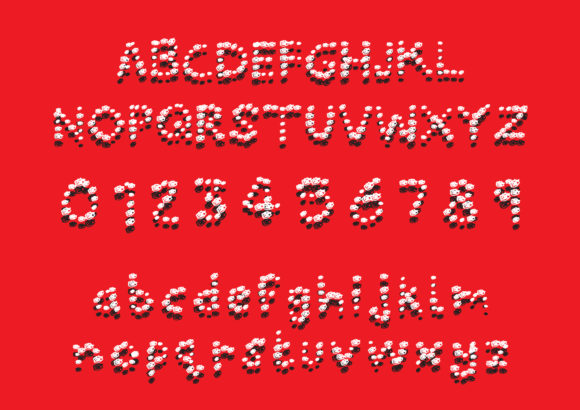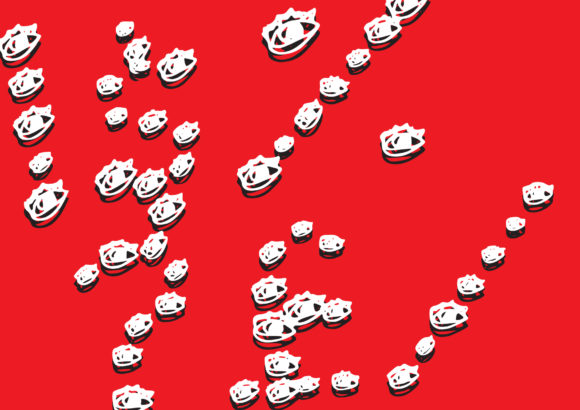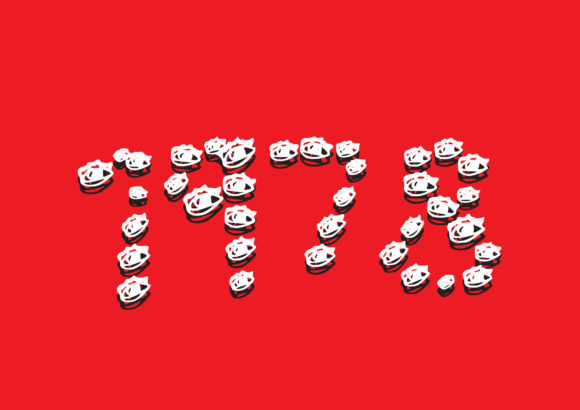
Eye Font: Add a Playful Touch to Your Designs with this Quirky Display Font
Are you tired of using the same old fonts in your designs? Do you want to add a unique touch to your projects and make them stand out from the crowd? Look no further than Eye Font, a playful display font that’s sure to bring a smile to your face. In this article, we’ll take a closer look at Eye Font, its features, and how you can use it to elevate your designs.
What is Eye Font?
Eye Font is a fun and quirky display font that’s made with hand-drawn eyes. Yes, you read that right – eyes! Each letter in the font has been carefully crafted to resemble an eye, giving it a playful and whimsical feel. The font is perfect for designers and crafters who want to add a touch of personality to their work.
Features of Eye Font
So, what makes Eye Font so special? Here are just a few of its key features:
- Hand-drawn eyes: Each letter in the font has been meticulously drawn to resemble an eye, giving it a unique and playful feel.
- Fun and quirky: Eye Font is the perfect way to add some personality to your designs. It’s fun, quirky, and sure to bring a smile to your face.
- Display font: Eye Font is designed to be used as a display font, making it perfect for headlines, titles, and other attention-grabbing elements.
- Unique touch: With Eye Font, you can give your designs a unique touch that sets them apart from the rest.
How to Use Eye Font in Your Designs
So, how can you use Eye Font in your designs? Here are a few ideas to get you started:
- Headlines and titles: Use Eye Font to create attention-grabbing headlines and titles that will draw your audience in.
- Logos and branding: Add a playful touch to your logos and branding with Eye Font.
- Social media graphics: Use Eye Font to create fun and engaging social media graphics that will help your posts stand out.
- Invitations and cards: Add a personal touch to your invitations and cards with Eye Font.
Tips for Using Eye Font Effectively
Here are a few tips for using Eye Font effectively in your designs:
- Use it sparingly: Eye Font is a bold and playful font, so use it sparingly to avoid overwhelming your design.
- Pair it with a neutral font: Pair Eye Font with a neutral font to create contrast and make your design more readable.
- Experiment with colors: Have fun with colors and try out different combinations to make your design pop.
In conclusion, Eye Font is a playful display font that’s perfect for designers and crafters who want to add a unique touch to their work. With its hand-drawn eyes and quirky feel, Eye Font is sure to bring a smile to your face. Whether you’re creating headlines, logos, or social media graphics, Eye Font is a great way to add some personality to your designs. So why not give it a try and see what kind of creative possibilities you can come up with?